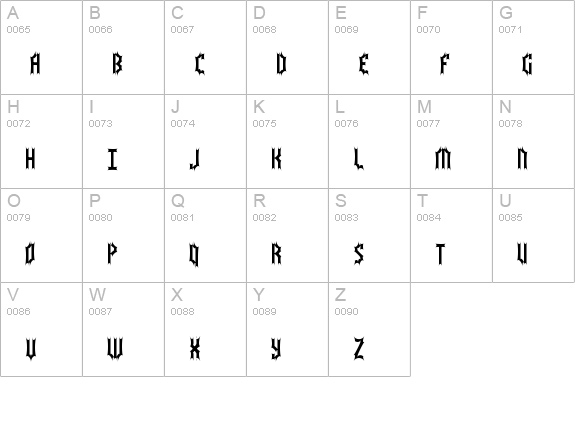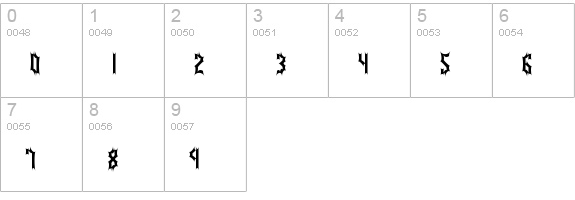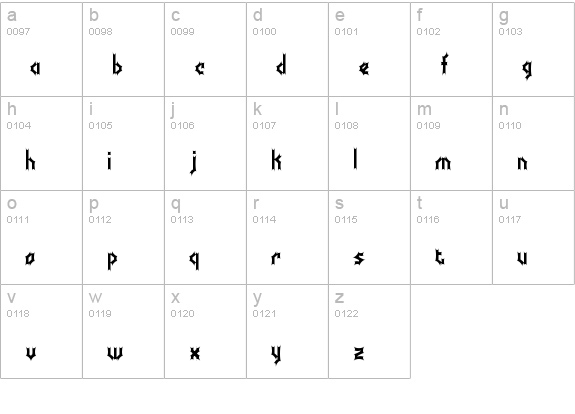
Bocuma Batty BRK Font Details
Bocuma Batty BRK font is a whimsical and playful display font that exudes a spooky charm. With its unique and slightly off-kilter letterforms, this font is perfect for adding a touch of Halloween spirit to your designs. The Bocuma Batty BRK font is free to download at FontsMarket.com, making it easily accessible for all your creative projects. Whether you're working on invitations, posters, or social media graphics, this font will add a fun and quirky element to your designs. Let your imagination run wild with Bocuma Batty BRK font and bring a hint of mischief to your next project.